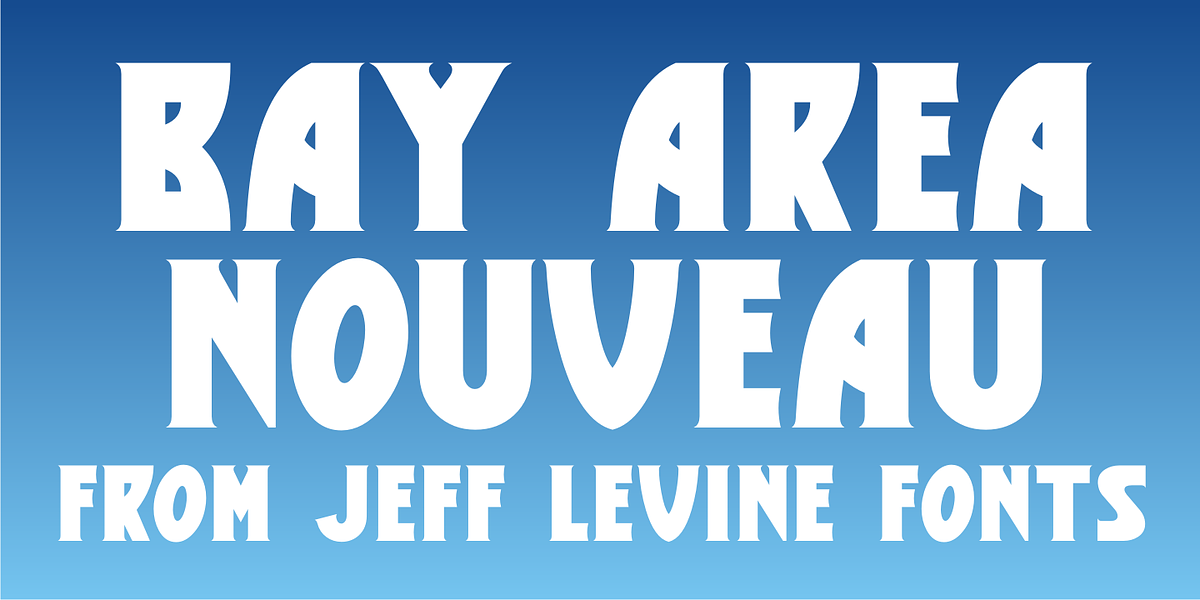
Bay Area Nouveau JNL
Bay Area Nouveau JNL is an ultra bold, Art Nouveau headline font inspired by hand lettering on the cover of a piece of 1911 sheet music entitled “The Only Pal I Ever Had Came from ‘Frisco Town”.